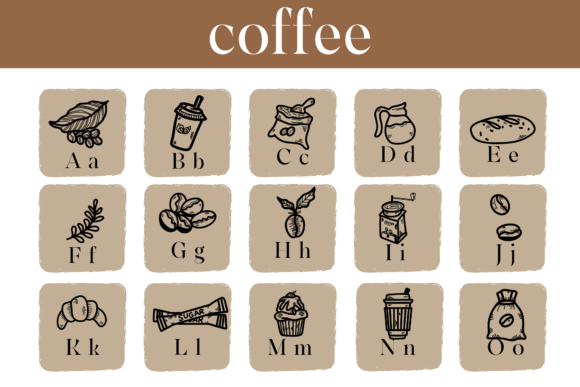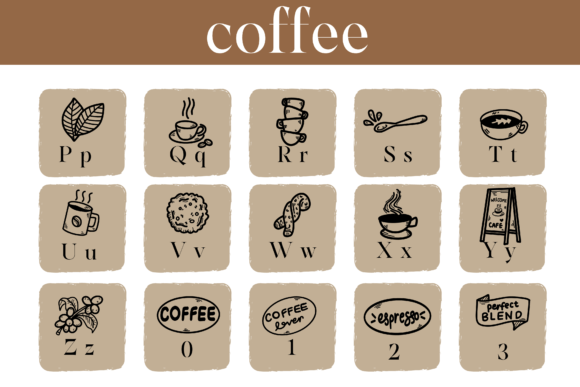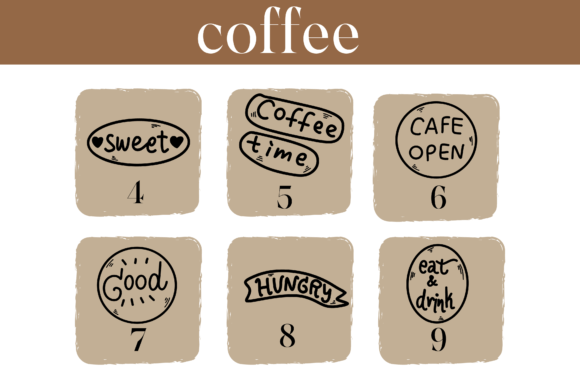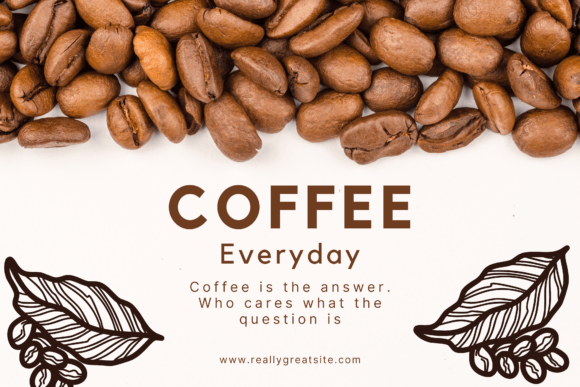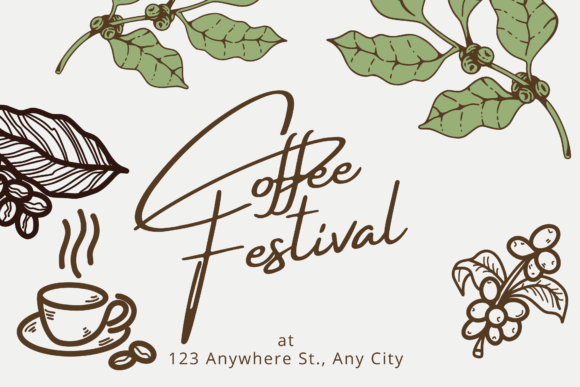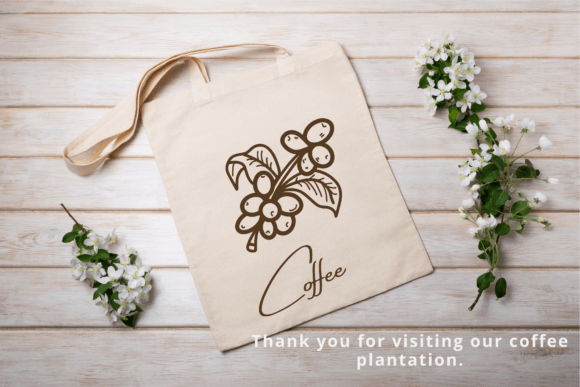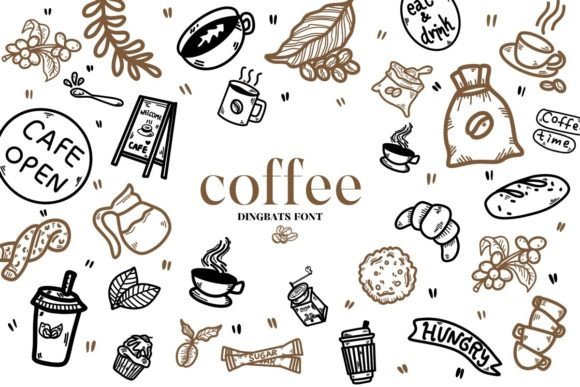
Coffee Font: The Perfect Addition to Your Creative Projects
Are you a designer or crafter looking for a unique and creative way to add a personal touch to your projects? Look no further than the Coffee Font, a dingbats font with a charming sketched theme. This versatile font is perfect for a wide range of creative projects, from wedding invitations and DIY crafts to decorations, logos, and more.
What is Coffee Font?
Coffee Font is a dingbats font that features a delightful sketched theme, giving it a warm and inviting feel. The font is made up of a collection of illustrations that resemble coffee-related items, such as coffee cups, beans, and saucers. These illustrations can be used to add a touch of whimsy and personality to your projects.
How Can I Use Coffee Font?
The possibilities are endless when it comes to using Coffee Font. Here are a few ideas to get you started:
- Wedding Invitations: Add a touch of elegance and sophistication to your wedding invitations with Coffee Font. Use the illustrations to create beautiful borders, headers, and footers that will set the tone for your special day.
- DIY Crafts: Coffee Font is perfect for DIY crafters who want to add a personal touch to their projects. Use the illustrations to create custom labels, tags, and decorations for your crafts.
- Decorations: Use Coffee Font to create custom decorations for your home or office. From wall art to table runners, the illustrations can be used to add a touch of personality to any room.
- Logos: Coffee Font can also be used to create unique and memorable logos for your business or brand. The illustrations can be used to create a custom logo that reflects your brand’s personality and style.
Why Choose Coffee Font?
There are many reasons why Coffee Font is the perfect choice for your creative projects. Here are a few:
- Unique and Creative: Coffee Font is a unique and creative way to add a personal touch to your projects. The illustrations are sure to stand out and make your projects memorable.
- Versatile: Coffee Font can be used for a wide range of projects, from wedding invitations to logos. The illustrations can be used in a variety of contexts, making it a versatile font that can be used again and again.
- Easy to Use: Coffee Font is easy to use, even for those who are new to dingbats fonts. The illustrations can be easily inserted into your projects using your favorite design software.
Tips and Tricks for Using Coffee Font
Here are a few tips and tricks for using Coffee Font:
- Experiment with Different Sizes: Experiment with different sizes to see how the illustrations look in different contexts. You may be surprised at how well they scale.
- Combine with Other Fonts: Combine Coffee Font with other fonts to create a unique and interesting look. The contrast between the sketched illustrations and a more traditional font can be particularly effective.
- Use for Color Inspiration: Use the illustrations in Coffee Font as inspiration for your color palette. The warm, earthy tones of the illustrations can be used to create a cohesive look for your projects.
| Font Name | Coffee Font |
| Author | Bee piyanuch |
Coffee Font is a versatile and creative dingbats font that is perfect for a wide range of projects. From wedding invitations to logos, the illustrations can be used to add a touch of personality and whimsy to your designs. With its unique and creative illustrations, Coffee Font is sure to become a favorite in your design arsenal.
Get Creative with Coffee Font!